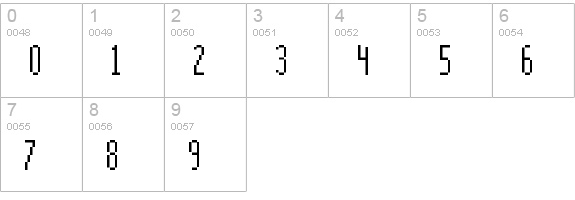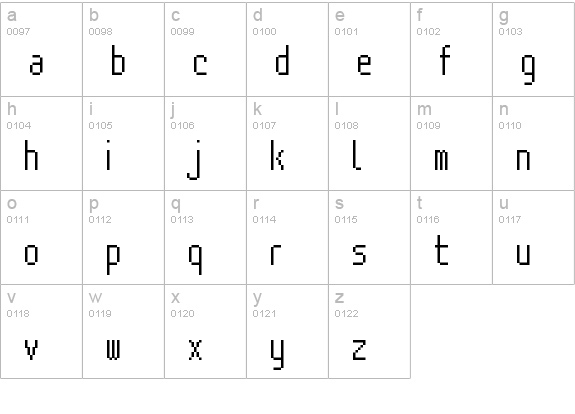
FortySeven Micro NBP Font Details
FortySeven Micro NBP font is a stunning display font that combines elegance and modernity. With its sleek and clean lines, this font is perfect for various design projects, from logos and branding to headlines and posters. What sets FortySeven Micro NBP font apart is its attention to detail and precision. Each letter is carefully crafted, ensuring a harmonious and balanced appearance that is pleasing to the eye. The font's micro size adds a touch of sophistication, making it stand out from other fonts in its category. One of the best things about FortySeven Micro NBP font is that it is absolutely free to download. You can easily find it at FontsMarket.com, a trusted source for high-quality fonts. Whether you are a professional designer or simply someone who loves to experiment with typography, this font is a must-have in your collection. The versatility of FortySeven Micro NBP font is another reason why it is so popular among designers. It works well in both print and digital formats, giving you endless possibilities to create captivating designs. The font's clean and legible style ensures that your message is conveyed clearly and effectively to your audience. With FortySeven Micro NBP font, you can add a touch of sophistication and elegance to your designs. Its sleek and modern appearance will make your projects stand out from the crowd. Whether you are working on a corporate identity, a website design, or a poster, this font will elevate your work to the next level. Download FortySeven Micro NBP font for free at FontsMarket.com and unleash your creativity. With this font in your toolkit, there are no limits to what you can create. So go ahead and explore the endless possibilities that this font has to offer.